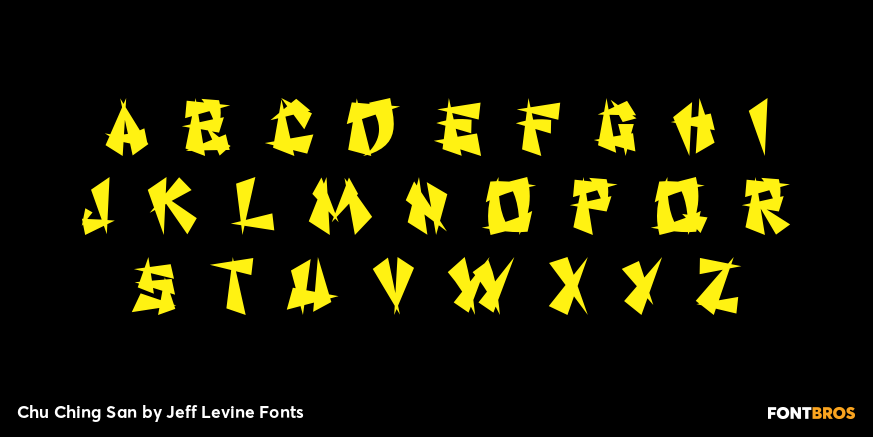
Chu Ching San
Novelty songs and their often crazy or extra-long titles were all the rage at the beginning of the 20th century.
A piece of sheet music for the 1920 song 'When Chu-Ching-San weds Paddy McCann” had the title hand lettered in an unusually bold form of Asian-inspired lettering.
This has been recreated digitally as the type font named for the song… Chu Ching San JNL.
Chu Ching San JNL Regular by Jeff Levine Fonts